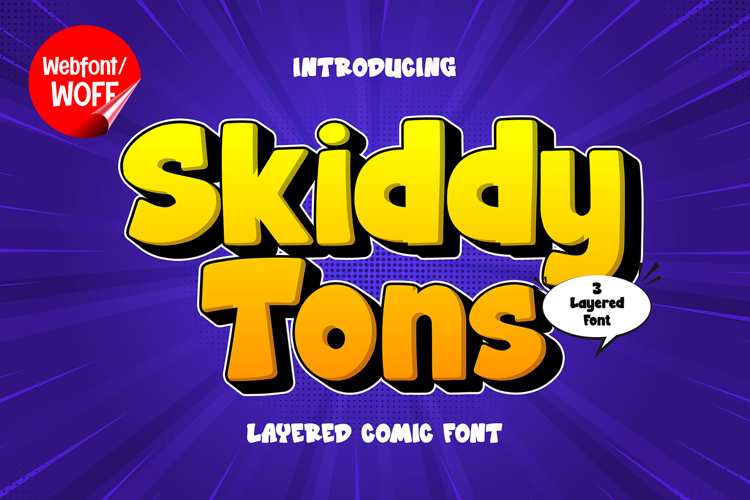
Skiddy Toons | 3D Layered Comic Webfont for Fun Websites
Skiddy Toons is a 3D layered comic webfont designed to bring a playful, energetic, and visually engaging style into modern website design. Inspired by comic book lettering and cartoon visuals, this font features bold shapes enhanced with layered depth, creating a lively and eye-catching appearance. It is an excellent choice for projects that aim to deliver fun, creativity, and strong visual storytelling.
Skiddy Toons includes a complete set of uppercase characters designed with bold comic-style forms and layered 3D effects. The dimensional structure adds depth and movement, making each letter stand out with a dynamic presence. These expressive shapes are ideal for headlines, banners, hero sections, and featured content where attention-grabbing typography is essential.
In addition to letters, the font includes numbers and punctuation, allowing flexible usage across various parts of a website. It works well for promotional text, product highlights, event announcements, and call-to-action sections. Each character maintains a consistent comic-inspired style, ensuring a cohesive and unified visual identity throughout the layout.
With multilingual support, Skiddy Toons includes a wide range of accented characters, making it suitable for international websites and global audiences. This allows content to be displayed clearly across different languages while preserving the playful and bold comic aesthetic.
The 3D layered comic style of Skiddy Toons makes it especially suitable for entertainment websites, kids-themed designs, gaming platforms, creative portfolios, and promotional campaigns. Its vibrant and expressive design adds personality and excitement, helping websites stand out in competitive digital spaces. The layered effect enhances visual depth, making content feel more interactive and engaging.
Despite its bold and decorative appearance, Skiddy Toons is designed with readability in mind. The spacing and structure of each character are carefully balanced to ensure clarity, particularly in display sizes. This makes it effective for impactful headings and short content elements where both style and usability are important.
Skiddy Toons is a webfont that combines comic-inspired creativity with layered depth and modern digital performance. Its bold shapes, dimensional style, and playful character create a distinctive typographic presence that enhances website design. For projects that require a fun, energetic, and visually engaging font, Skiddy Toons offers a reliable and creative solution.